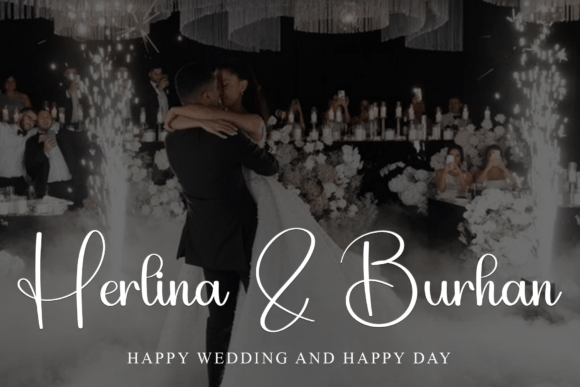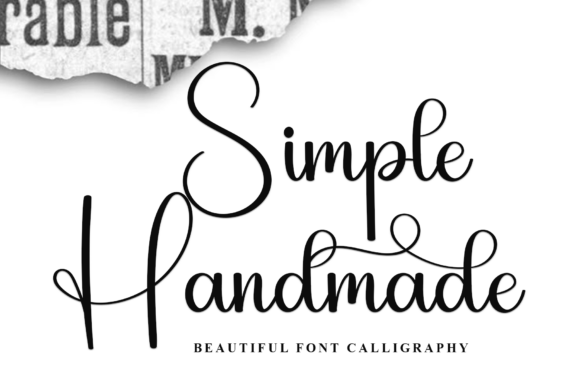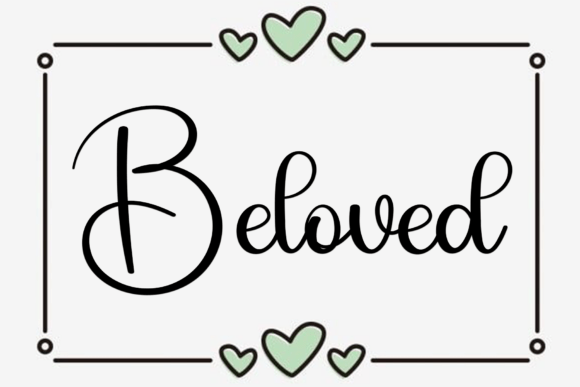
Introduction to Highland Elegand Font
As a designer, have you ever stared at a blank canvas, searching for the perfect font to bring your creative project to life? You’ve spent hours browsing through design resources, trying to find that elusive combination of style and personality. And then, just when you thought all hope was lost, you stumbled upon it – the Highland Elegand Font.
This charming, hand-drawn font is more than just a design resource – it’s a key to unlocking your creative potential. With its warm and friendly vibe, Highland Elegand Font is the perfect addition to any project, from invitations and social media graphics to personal projects and branding materials. Its high-quality design and transparent background make it a versatile tool that can be used across various applications, from Adobe Photoshop to Canva.
What sets Highland Elegand Font apart is its unique, hand-drawn aesthetic, which adds a touch of personality to any design. And the best part? It’s available for free download, making it an invaluable resource for designers of all levels. Whether you’re a seasoned pro or just starting out, Highland Elegand Font is sure to become your go-to design companion.
Key Features of Highland Elegand Font
- Unique Script Font Design: Highland Elegand Font features a beautiful, elegant script design perfect for adding a touch of sophistication to your creative projects.
- Transparent Background: The font’s transparent background makes it easy to layer and combine with other design elements, giving you more creative control.
- High Resolution: The font is designed at 300 DPI, ensuring crisp and clear text output, even at larger sizes.
- Perfect for Wedding Invitations and Stationery: The elegant script design makes Highland Elegand Font an ideal choice for wedding invitations, stationery, and other special occasion designs.
Honest Review: Highland Elegand Font
As a designer, I’ve had the chance to work with numerous fonts for various creative projects, and I’m excited to share my thoughts on the Highland Elegand Font.
What works well: ✨ The Highland Elegand Font is a high-quality design resource that exudes sophistication and elegance. Its sleek, modern design makes it perfect for creating professional-looking documents, presentations, and even digital products. I particularly appreciate the availability of a free download, which makes it accessible to designers of all levels.
What I love about the Highland Elegand Font is its versatility. It’s suitable for a wide range of creative projects, from business proposals to website content. Additionally, its transparent background makes it easy to layer with other design elements.
Limitations: ⚠️ One potential drawback is the limited character set, which may not be ideal for designers who need to work with extensive text content. However, for most creative projects, this shouldn’t be a major concern.
Overall, I’m impressed with the Highland Elegand Font’s design quality and versatility. While it may have some limitations, its benefits far outweigh the drawbacks, making it a valuable addition to any designer’s toolkit.
- Suitable for various creative projects
- High-quality design resource
- Modern and elegant design
Is the Highland Elegand Font available with a transparent background?
Yes, the Highland Elegand Font includes a transparent background option. This allows you to use the font on a variety of backgrounds, including images and videos, without worrying about the font’s background interfering with your design. Simply select the transparent background option in your design software to take advantage of this feature.